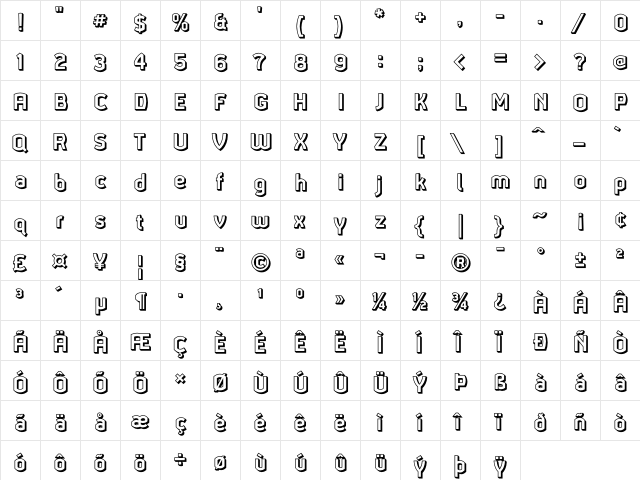
Ganymede3D Regular
DesignerJames Arboghast
Design Context for Ganymede3D Typeface
Ganymede3D offers clean, dependable letterforms without strong stylistic allegiance, making it a practical choice for designers who need flexibility.